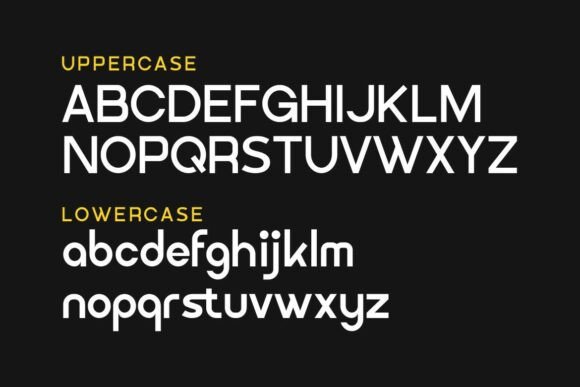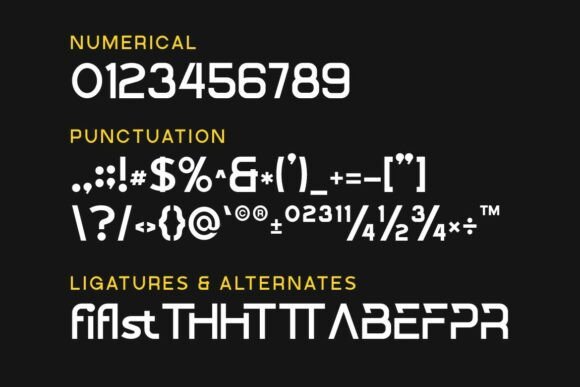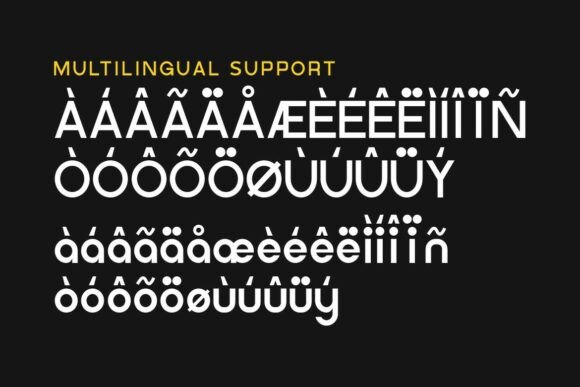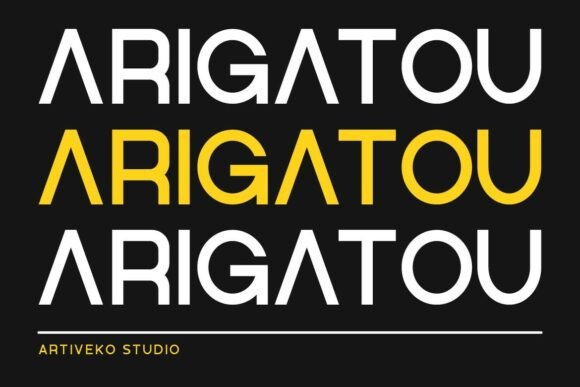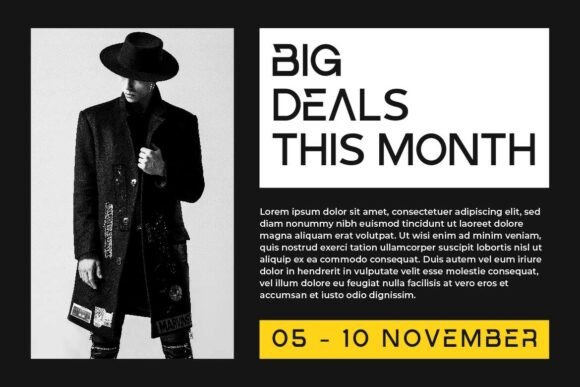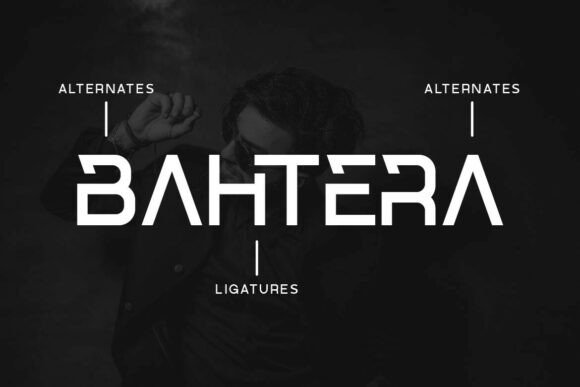
The Perfect Blend of Style and Versatility: Introducing Fontind Regular Font
There’s nothing quite like the thrill of bringing a new design project to life, and for many creatives, the right font can be the spark that ignites the entire process. Whether you’re crafting a brand identity, designing a tech interface, or laying out an editorial piece, the right font can make all the difference.
Enter Fontind Regular Font, a modern geometric sans serif typeface designed with versatility in mind. Its clean curves, low contrast, and minimalist precision make it the perfect choice for designers seeking a bold yet elegant voice in modern typography. With its uniform proportions and rounded forms, Fontind Regular Font is ideal for a wide range of applications, from branding and tech interfaces to editorial layouts and logo design.
What sets Fontind Regular Font apart is its unique balance of friendliness and structure, allowing it to maintain clarity at all sizes. And with PUA encoding included, all special characters and decorative elements are easily accessible without additional software.
Fontind Regular Font Key Features
- Font Family: Fontind Regular
- Unique Characteristics: Fontind Regular features a clean and modern sans-serif design, ideal for digital interfaces and publications, with a subtle x-height and well-balanced letter spacing
Fontind Regular Font Review
Overall, I have mixed feelings about the Fontind Regular Font. On the one hand, it has its strengths, but on the other, there are some limitations that make it less desirable.
- Clear readability: The font is easy to read, especially in body text. It’s great for content-heavy websites or documents.
- Narrow character set: Fontind Regular Font has a surprisingly small character set, making it ideal for situations where you need to conserve space.
- Neutral style: The font’s neutral style makes it versatile and easy to pair with other fonts.
- Lack of personality: The font is too plain and lacks character, making it less memorable than other fonts.
- Not ideal for headings: The font’s readability suffers when used in headings or titles, making it less effective for emphasizing important information.
- Not suitable for creative projects: The font’s lack of flair makes it less suitable for creative projects that require a unique visual identity.
In conclusion, while the Fontind Regular Font has its strengths, its limitations make it less desirable for a wide range of applications. However, it may still be suitable for situations where readability and space conservation are top priorities.
Getting the Most Out of Fontind Regular Font
For best results, use Fontind Regular Font in combination with a clear and simple design. This font is ideal for body text and is particularly effective for long-form content.
Experiment with different font sizes and line heights to achieve a balanced and readable design.
Fontind Regular Font is suitable for a wide range of applications, including:
1. Body text in reports, articles, and other long-form content.
2. Labels and captions in infographics and data visualizations.
3. Headings and subheadings in presentations and marketing materials.